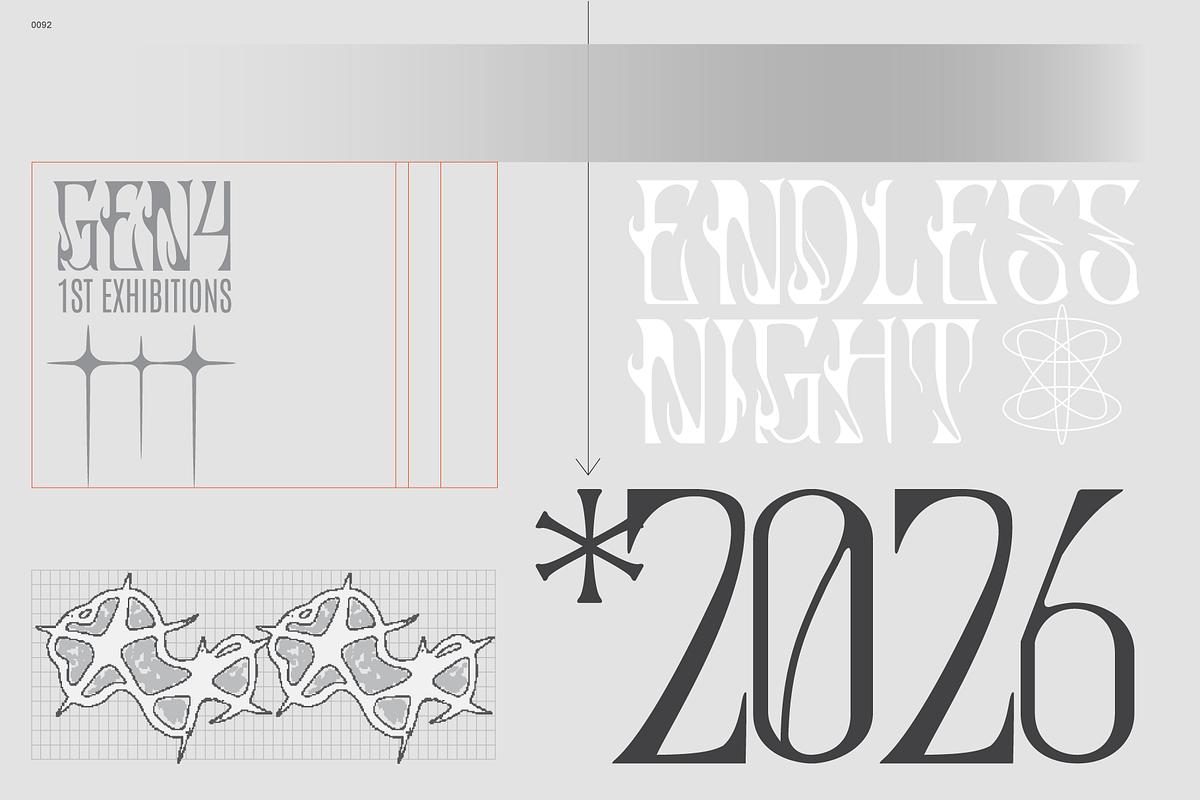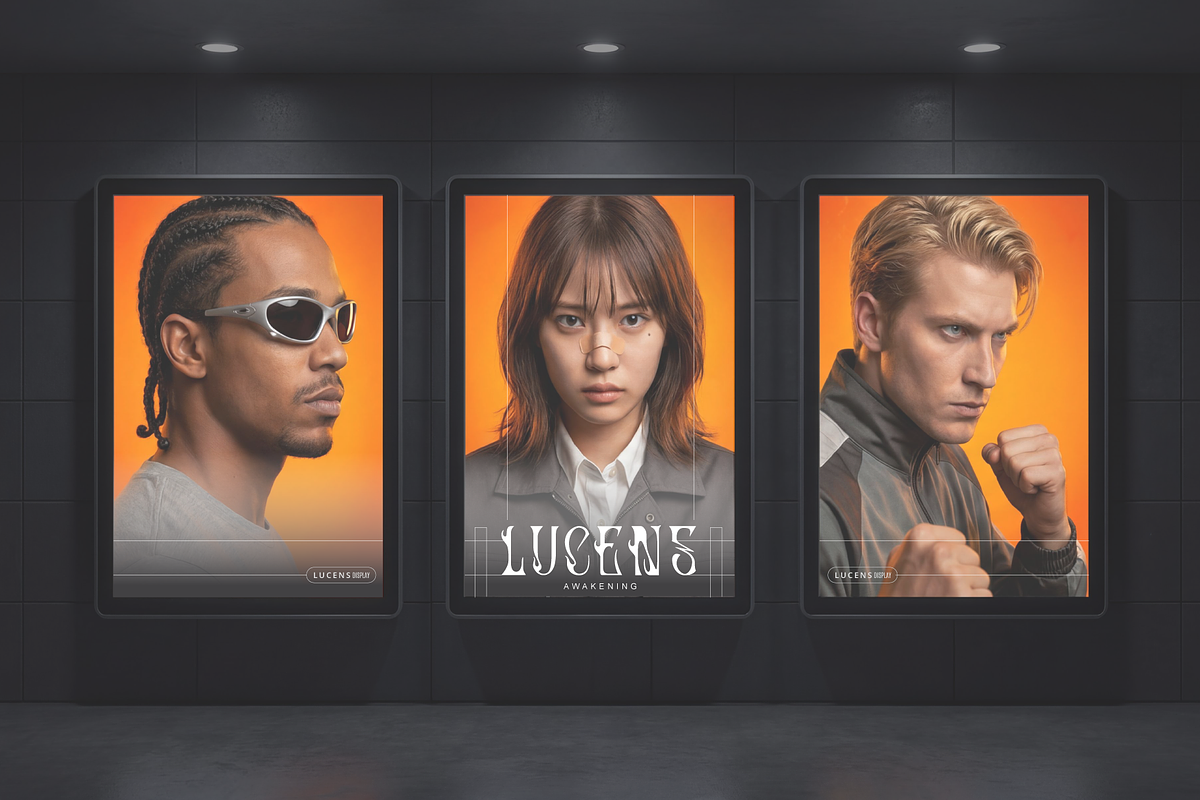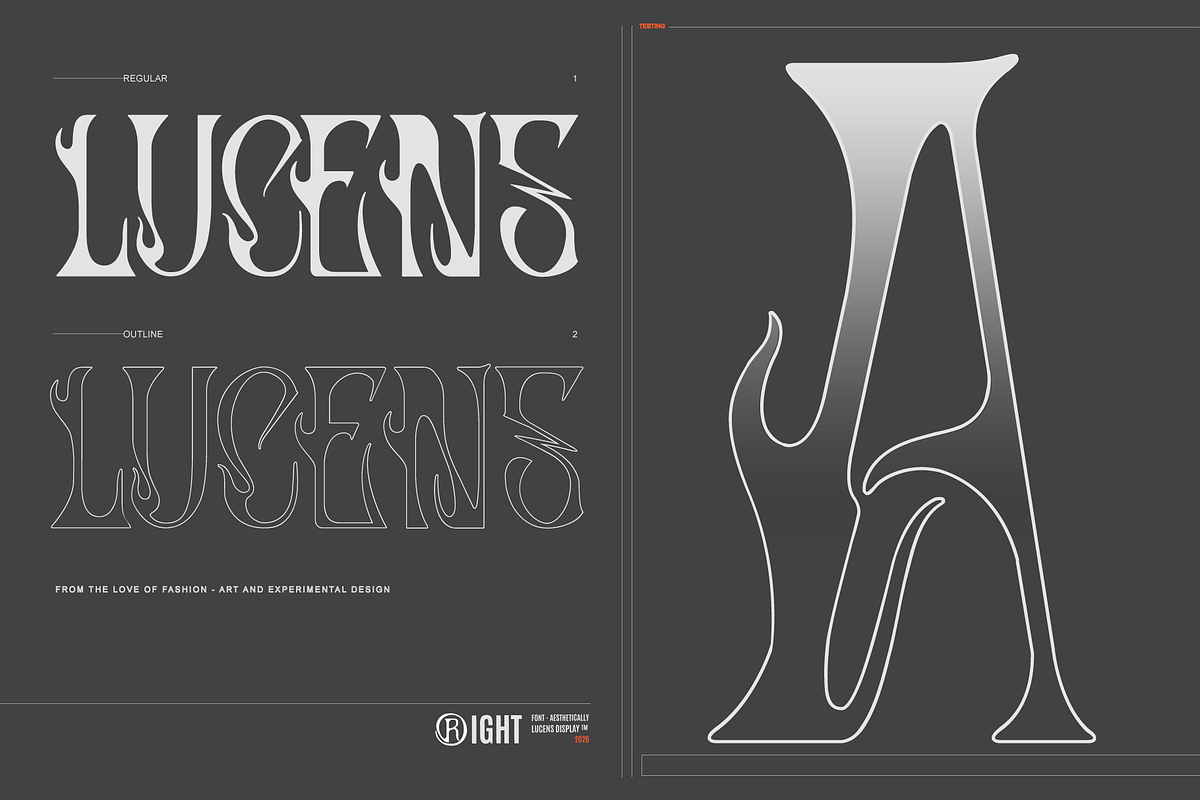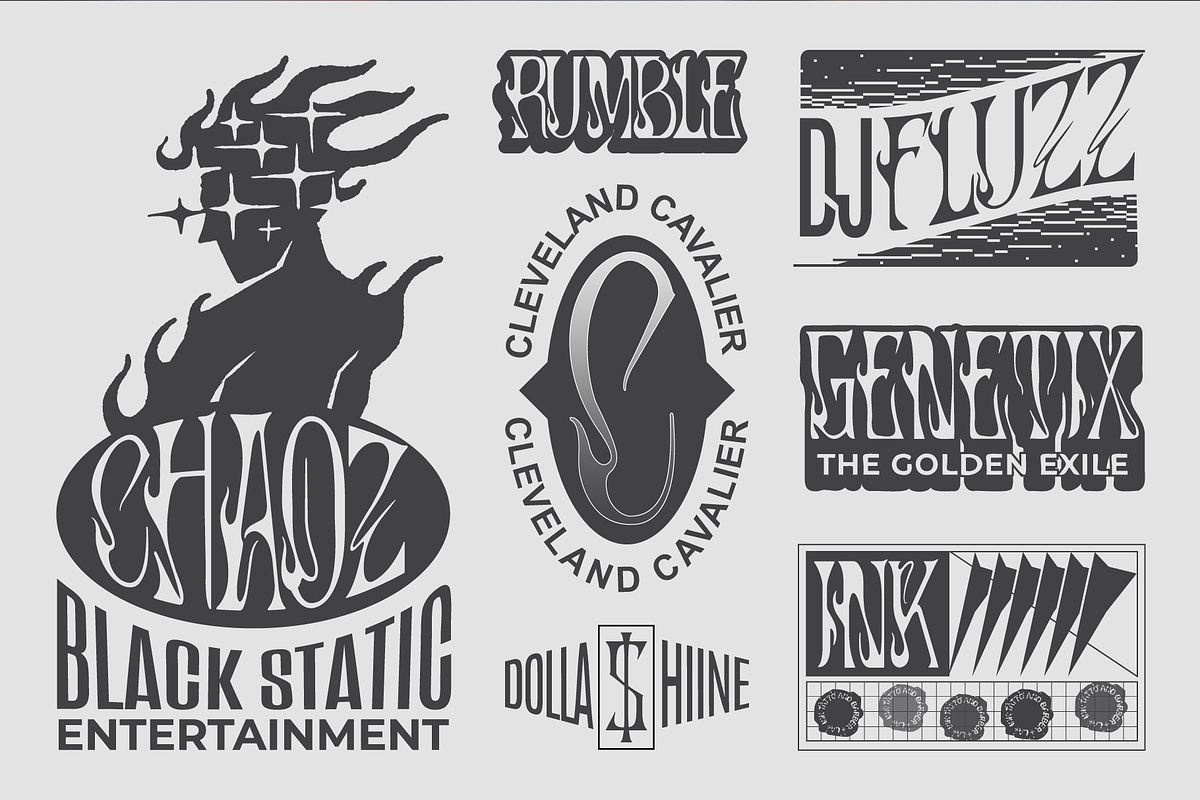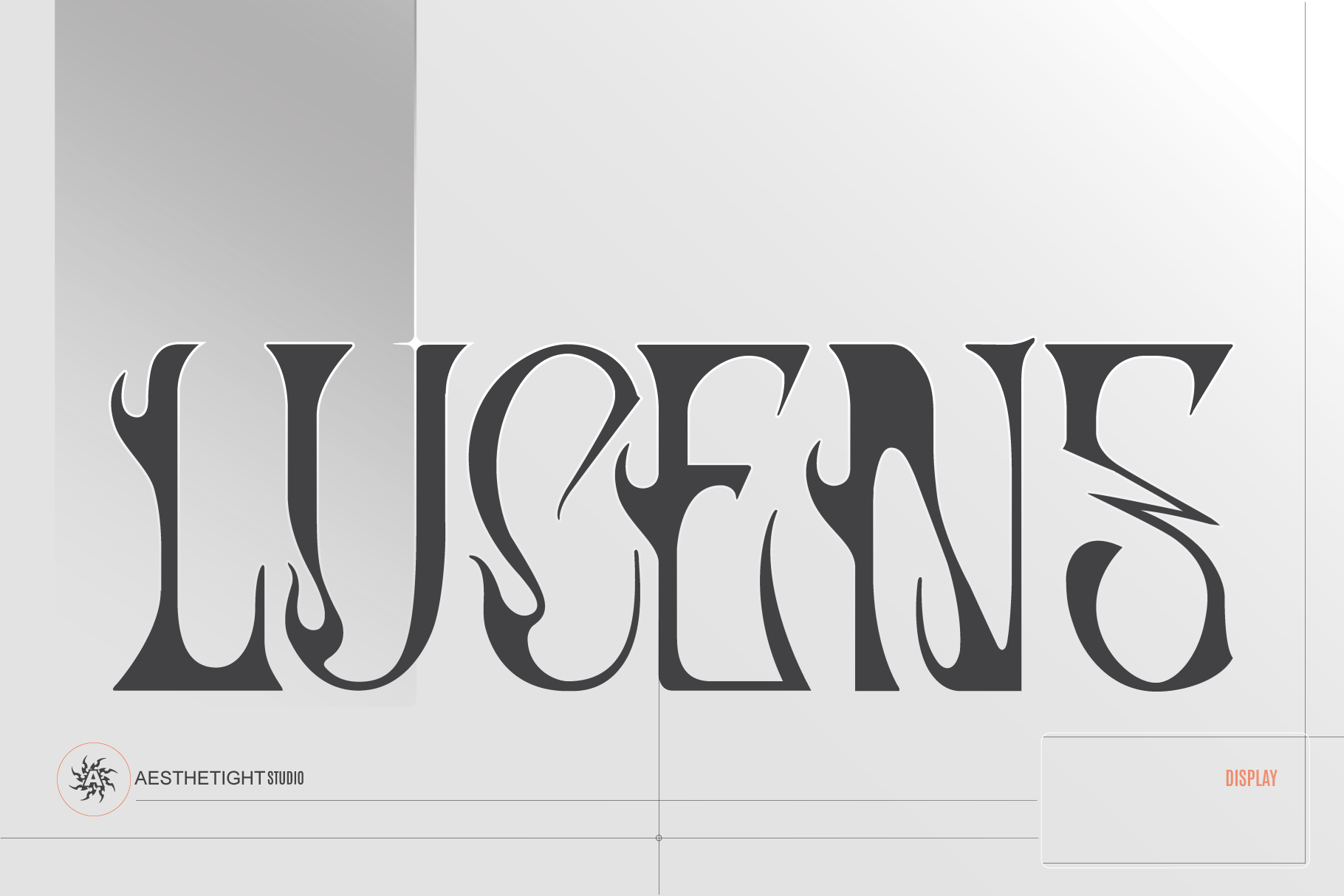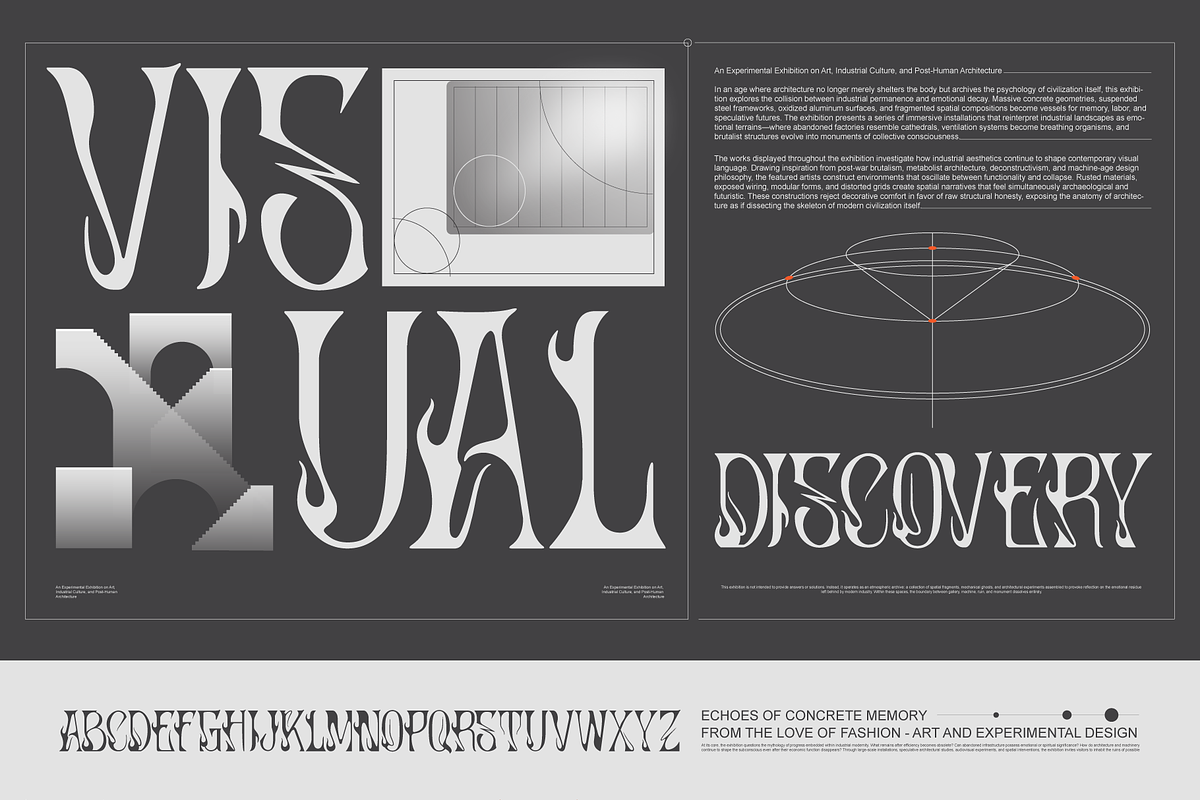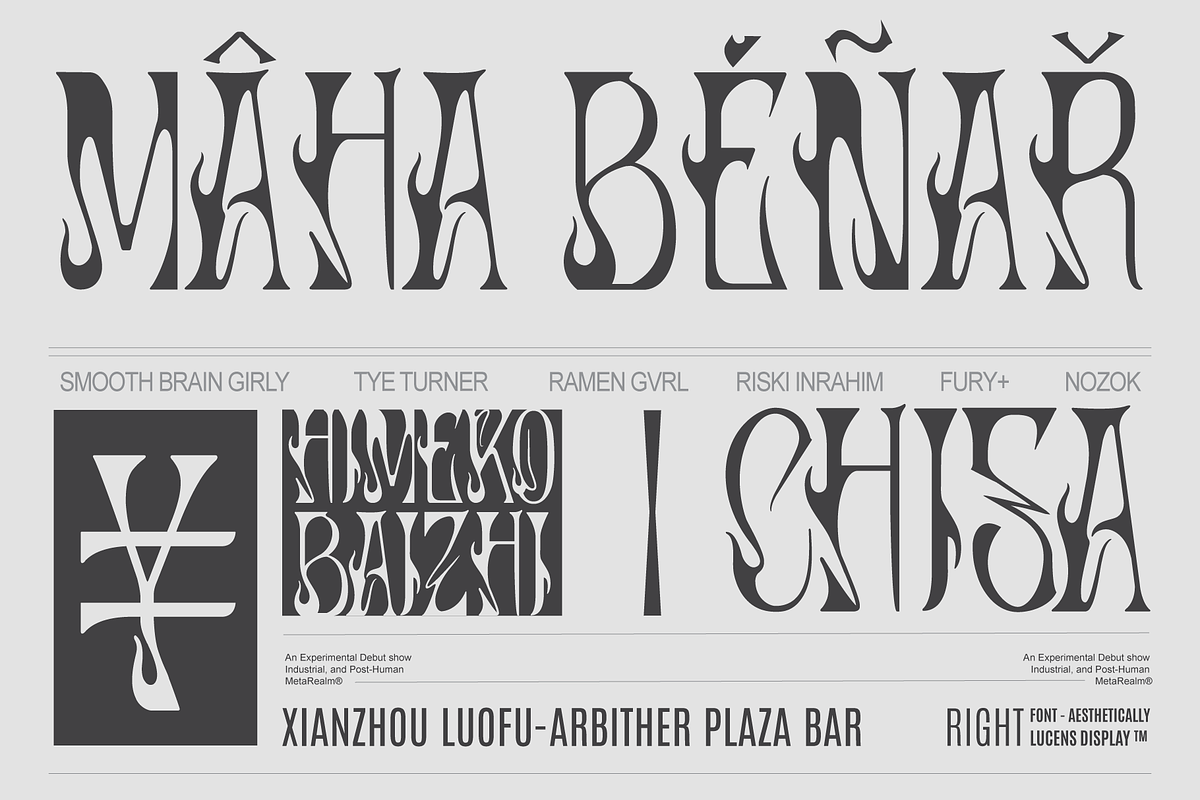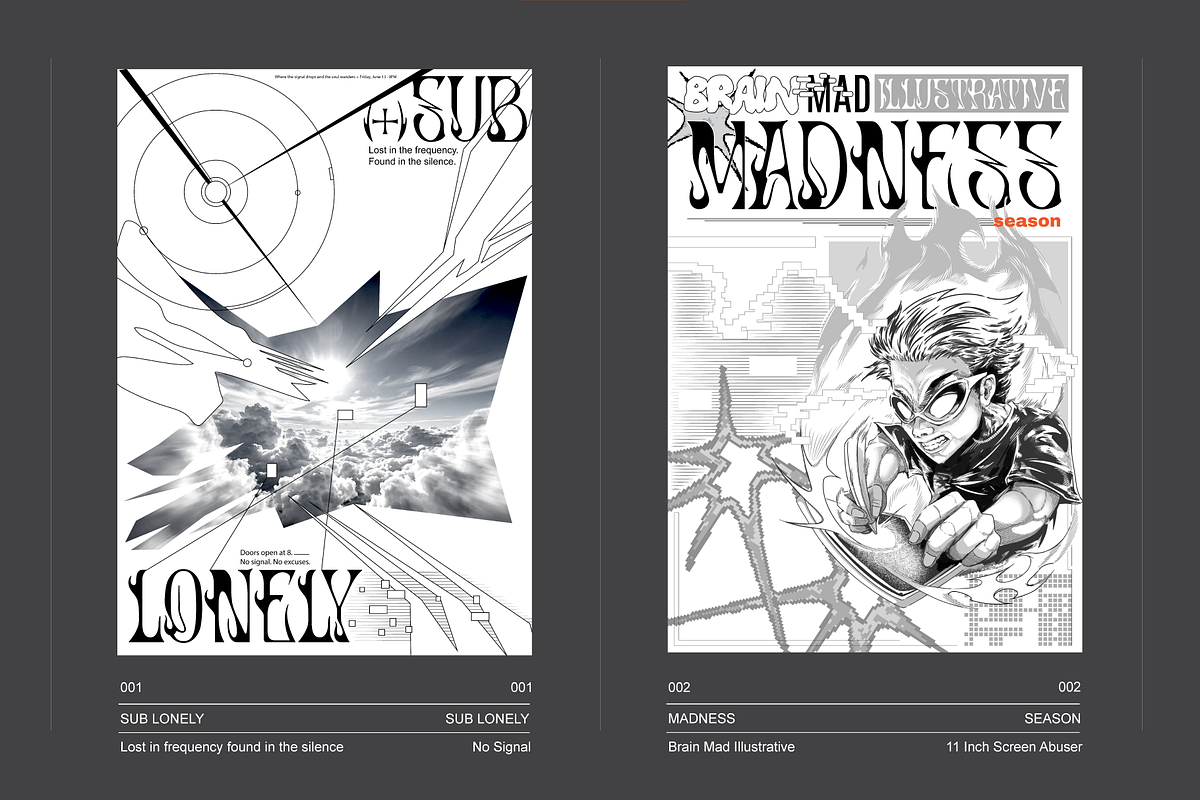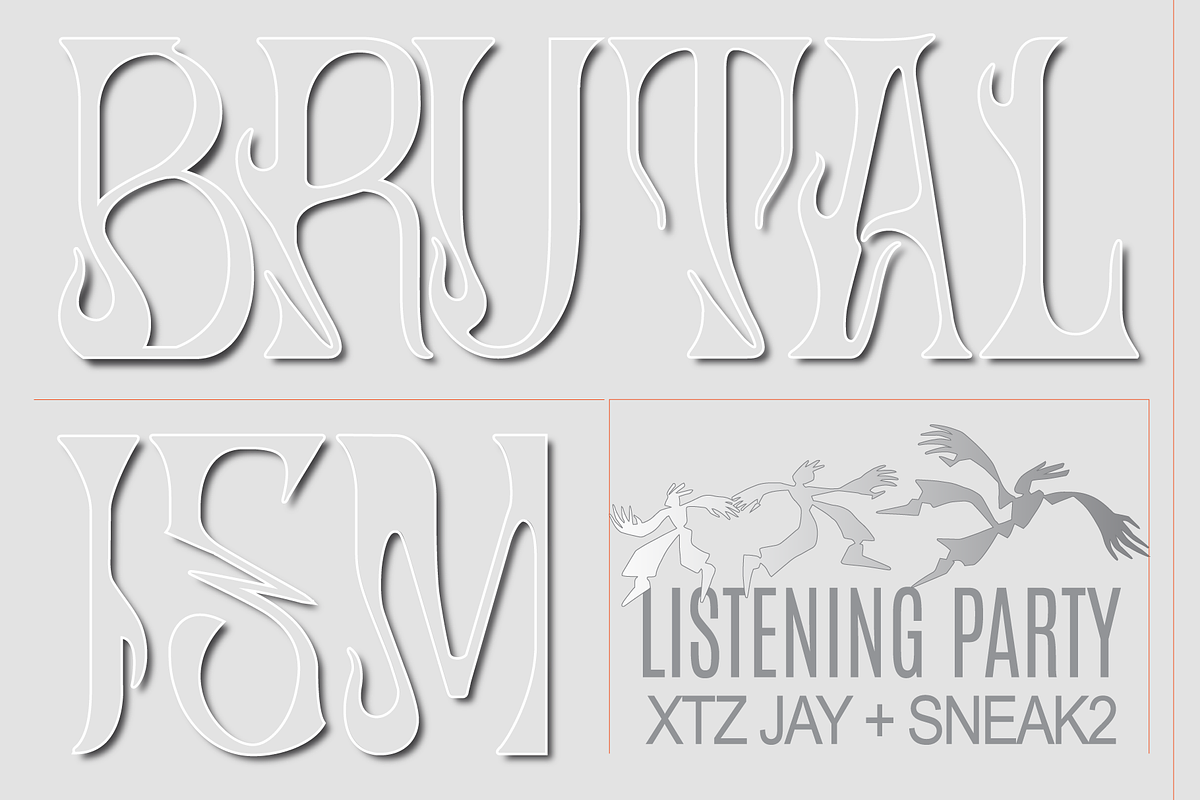
Lucens — Modern Gothic Display Font
Where cyber sigils meet brutal elegance. A typeface built to command.
Lucens is not a typeface — it's a mark.
Born from the intersection of gothic ritual and modern visual language, Lucens carries the weight of dark ceremony without losing its edge. Every letter is drawn to occupy space with intention — sharp deliberate strokes that bleed into fluid, arcane curves. Flame terminals. Sigil-grade serifs. A presence that lingers long after the eye moves on.
Designed for those who demand more from their typography: brands with teeth, visuals with doctrine, work that refuses to be background noise.
— WHAT'S INCLUDED —
· 26 uppercase characters (A–Z)
· Numerals 0–9
· Punctuation & special characters
— BUILT FOR —
· High-fashion branding & editorial
· Album artwork, merch, and band identity
· Streetwear and underground labels
· Tattoo studios and dark luxury aesthetics
· Poster design, apparel, and experimental typography
Lucens speaks loudest when everything else goes quiet.